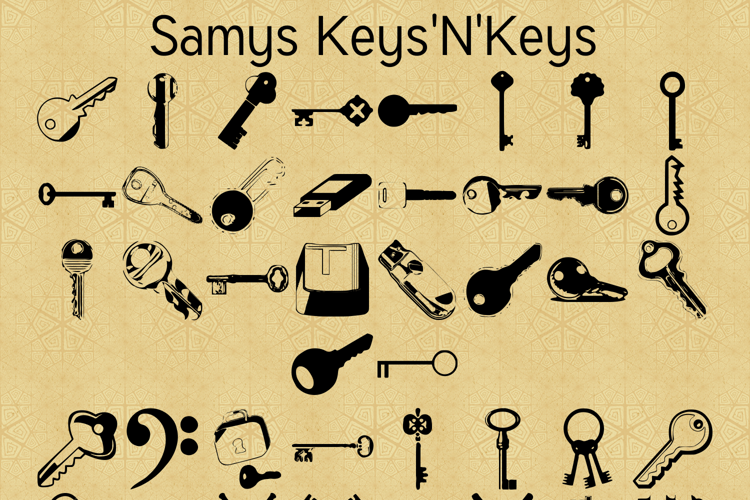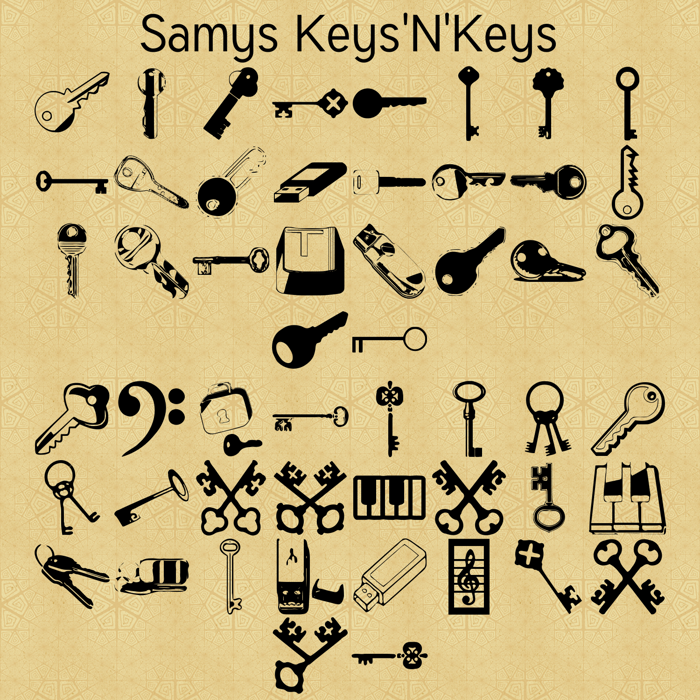
Samys Keys N Keys Font
This is a free (Public Domain) font, featuring keys of all sorts. I used Public Domain images from the OCAL: http://openclipart.org/
11 years agogreat, u have vatican logo key.